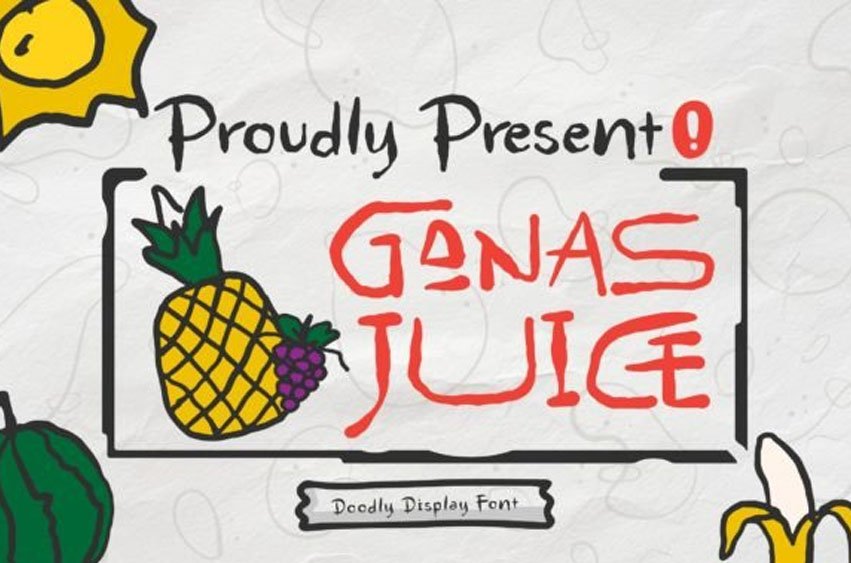
Ganas Juice Font
Ganas Juice Font is a doodly display font, suitable for any projects such as: logos, branding projects, homeware designs, product packaging, mugs, quotes, posters, shopping bags, t-shirts, book covers, name card, invitation cards, greeting cards, label, photography, watermark, special events, and all your other lovely projects that need a Doodly Display taste.
It will certainly amaze your readers.